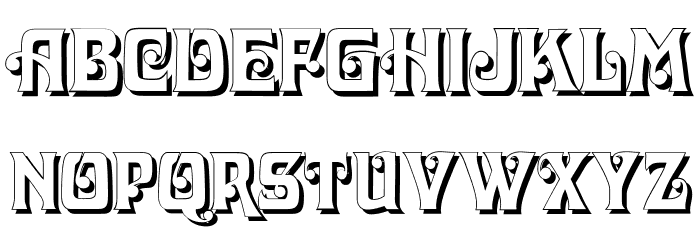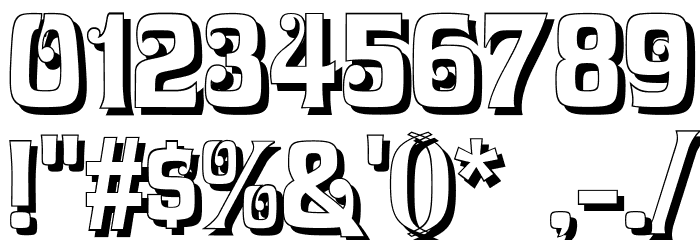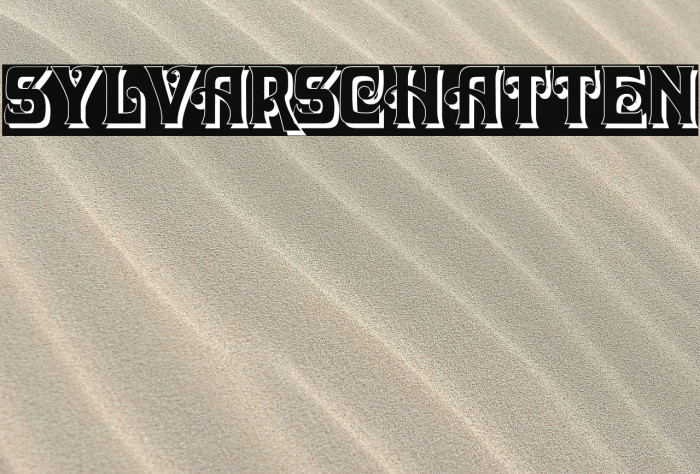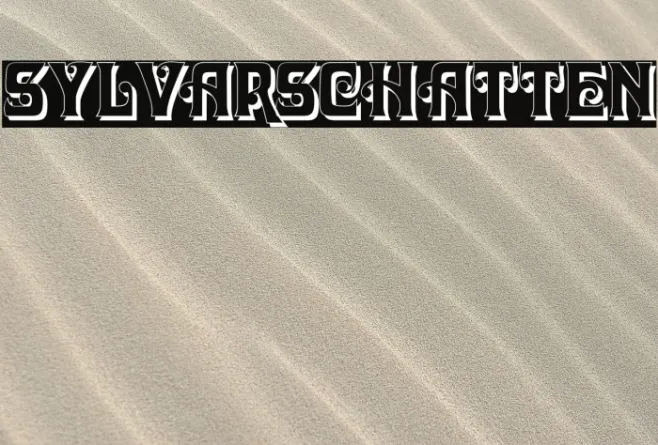
SylvarSchatten Font
This font features a bold, decorative style with a strong presence. Each character is designed with a shadow effect that gives a three-dimensional appearance, enhancing its visual impact. The letters are uppercase with sharp angles and unique embellishments, such as small serifs and intricate details, adding to its ornate design. The numbers and special characters maintain the same bold and decorative style, ensuring consistency across all glyphs. This font is ideal for projects that require a striking and memorable typeface.
A bold, decorative font with a three-dimensional shadow effect.
- Proposed Projects: Ideal for posters, logos, headlines, and any design requiring a bold statement.